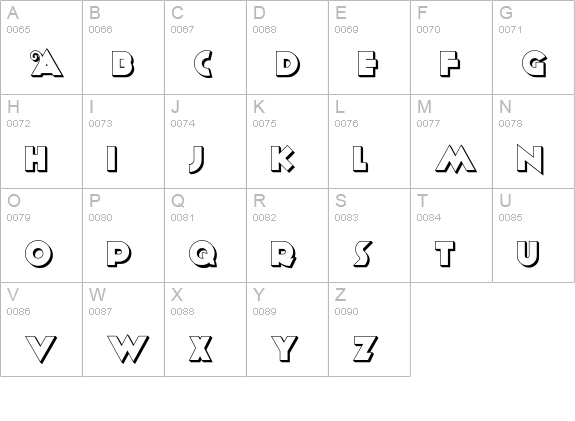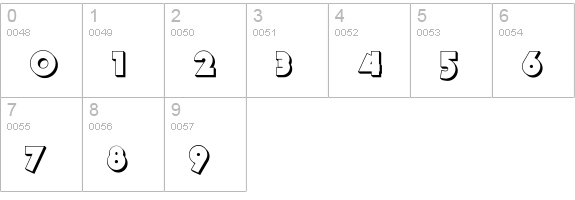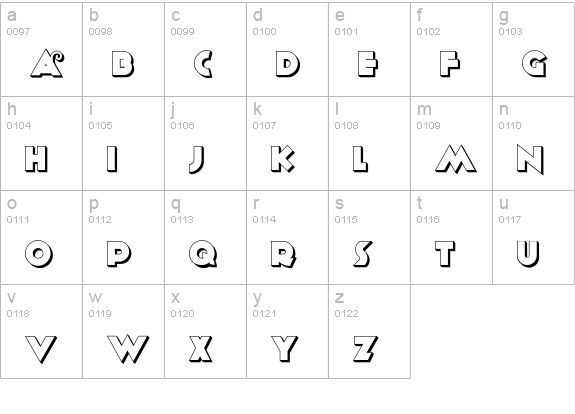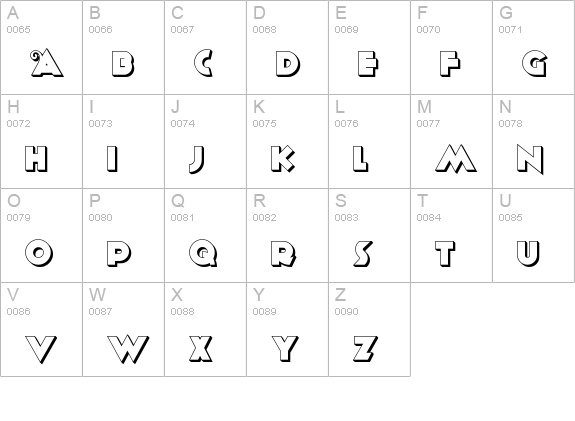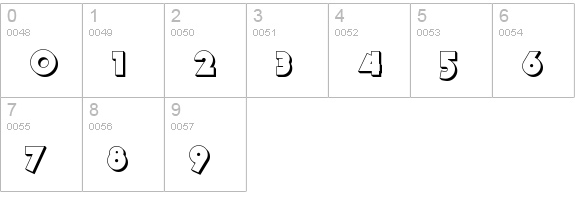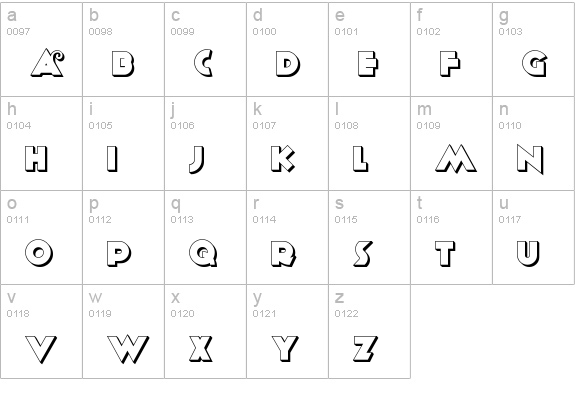
Anagram Shadow NF Font Details
Anagram Shadow NF is a striking display font that combines vintage charm with a modern twist. With its distinctive shadow effect and intricate letterforms, this font is perfect for creating eye-catching headlines, posters, and logos. The unique design of Anagram Shadow NF ensures that your text will stand out and make a lasting impression. What sets this font apart is its versatility and style. Whether you're designing a retro-inspired project or a contemporary brand identity, Anagram Shadow NF has got you covered. Its bold presence and elegant curves make it a standout choice for any design project. And the best part? Anagram Shadow NF is completely free to download at FontsMarket.com! So you can add this stunning font to your collection without breaking the bank. Don't miss out on the opportunity to enhance your designs with the captivating Anagram Shadow NF font. Download it today and take your projects to the next level.